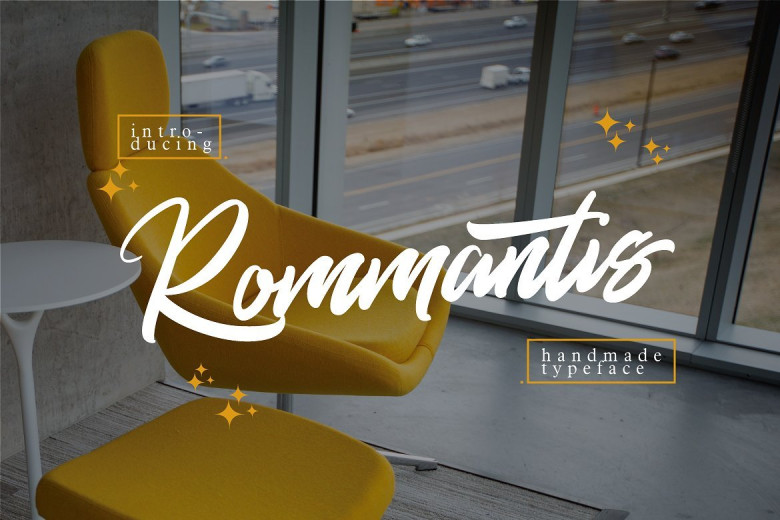
Rommantis Script Font
This is a modern and natural hand lettered font. Work great for any your design needs. Introducing Rommantis Font. Rommantis – is handtype font, every single letters have been carefully crafted to make your text looks beautiful. With modern style this font will perfect for many different project ex: quotes, blog header, poster, wedding, branding, logo, fashion, apparel, letter, invitation, stationery, etc.